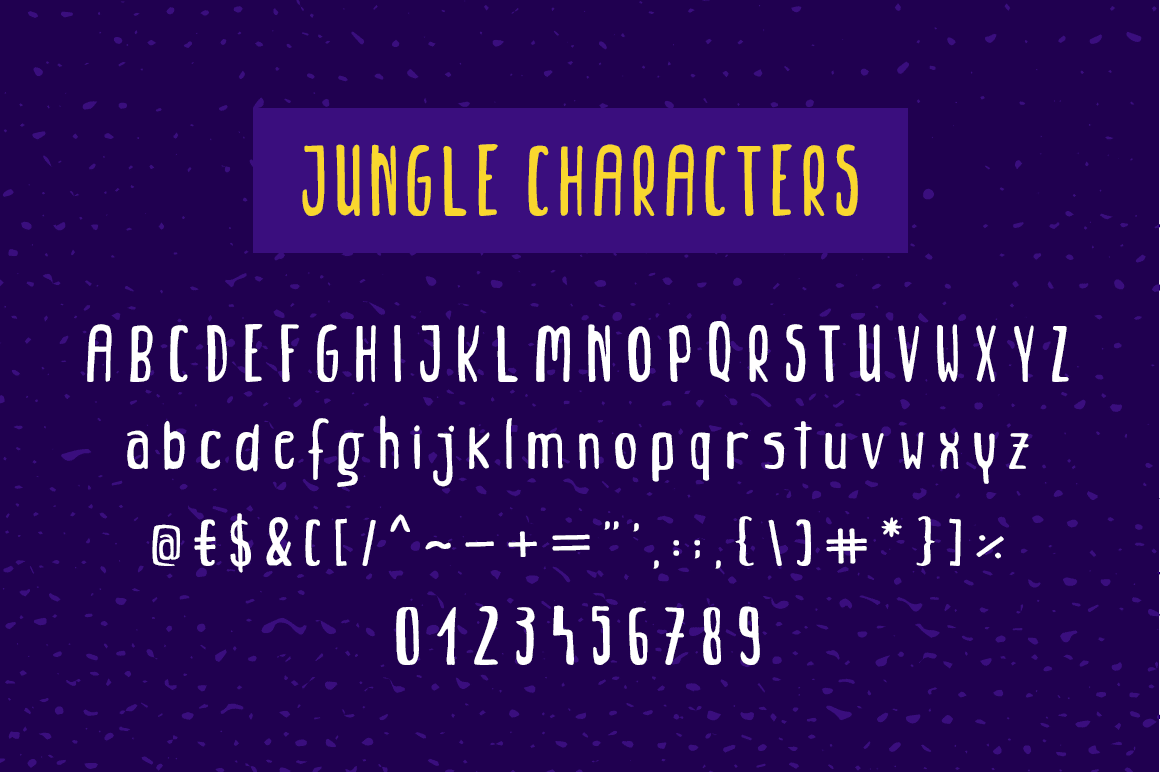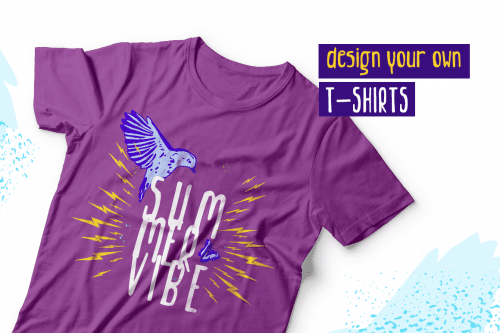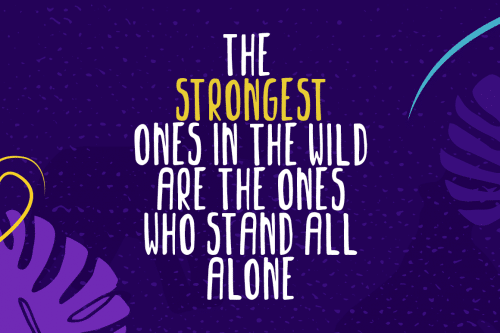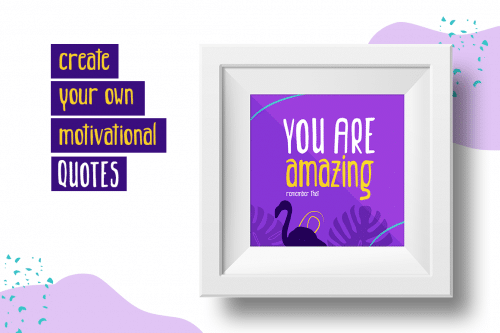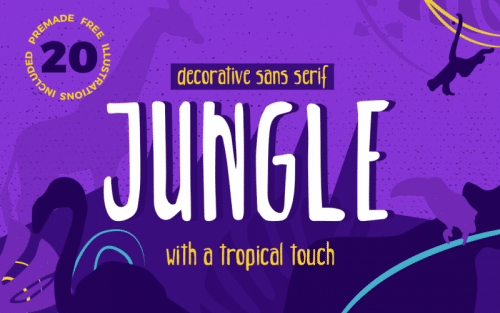
JUNGLE is a funky handmade font designed for cards, t-shirt design, logos, quotes design, kids books. An decorative typeface that will bring you the positive vibes out of a tropical feeling. Jungle comes with uppercase, lowercase, basic characters, standard numbers and punctuation.
JUNGLE is a funky handmade font designed for cards, t-shirt design, logos, quotes design, kids books.
- Designer: Duka